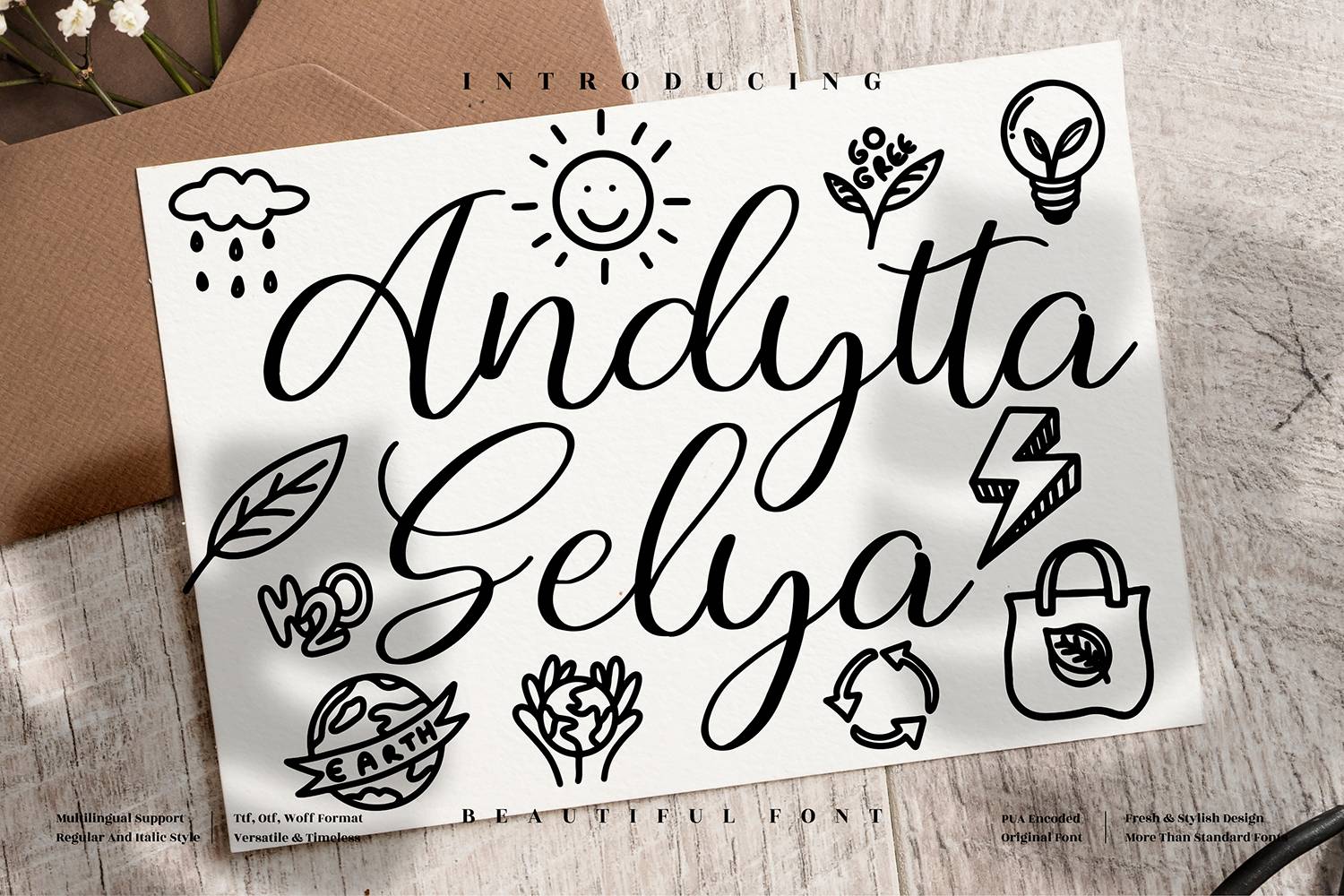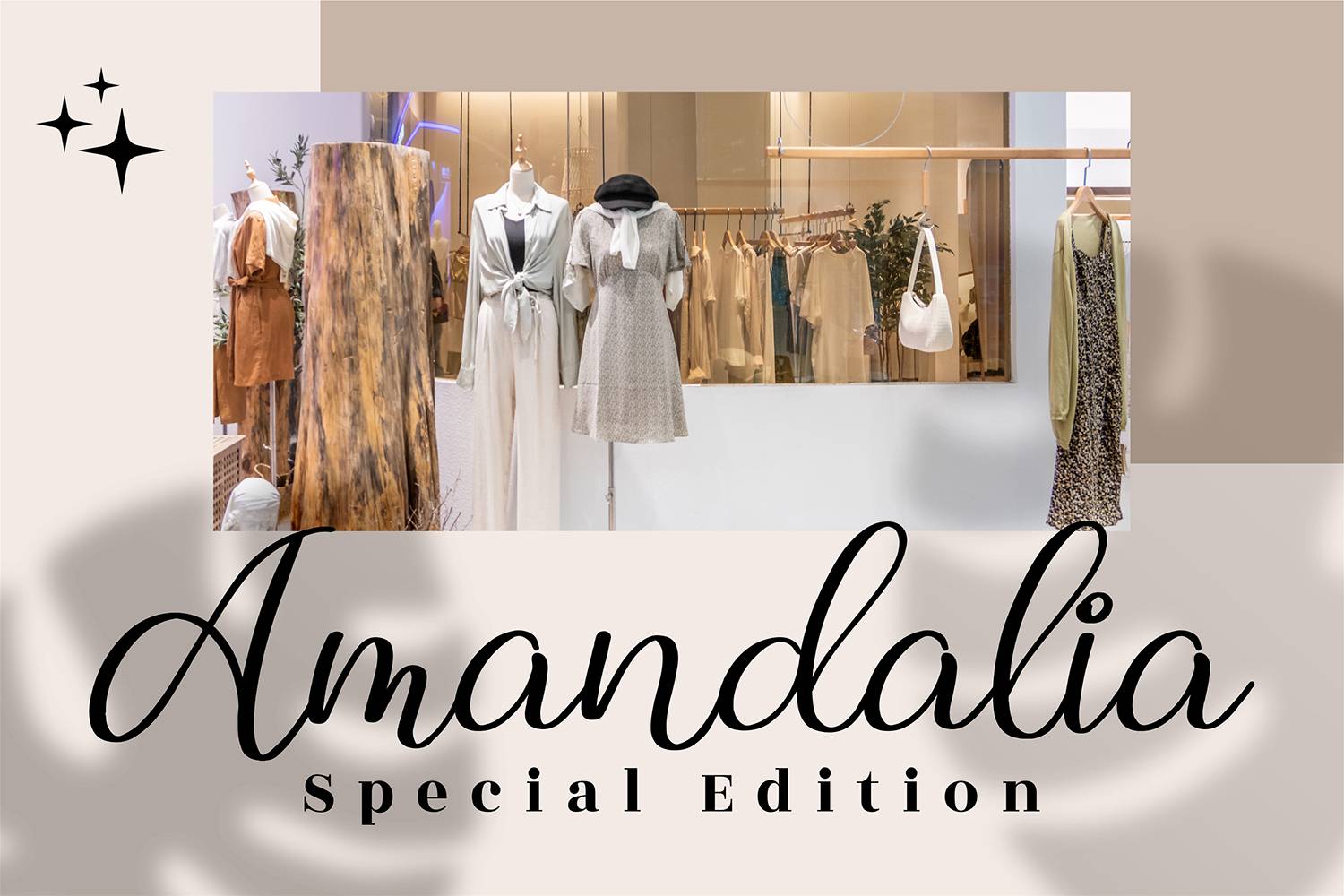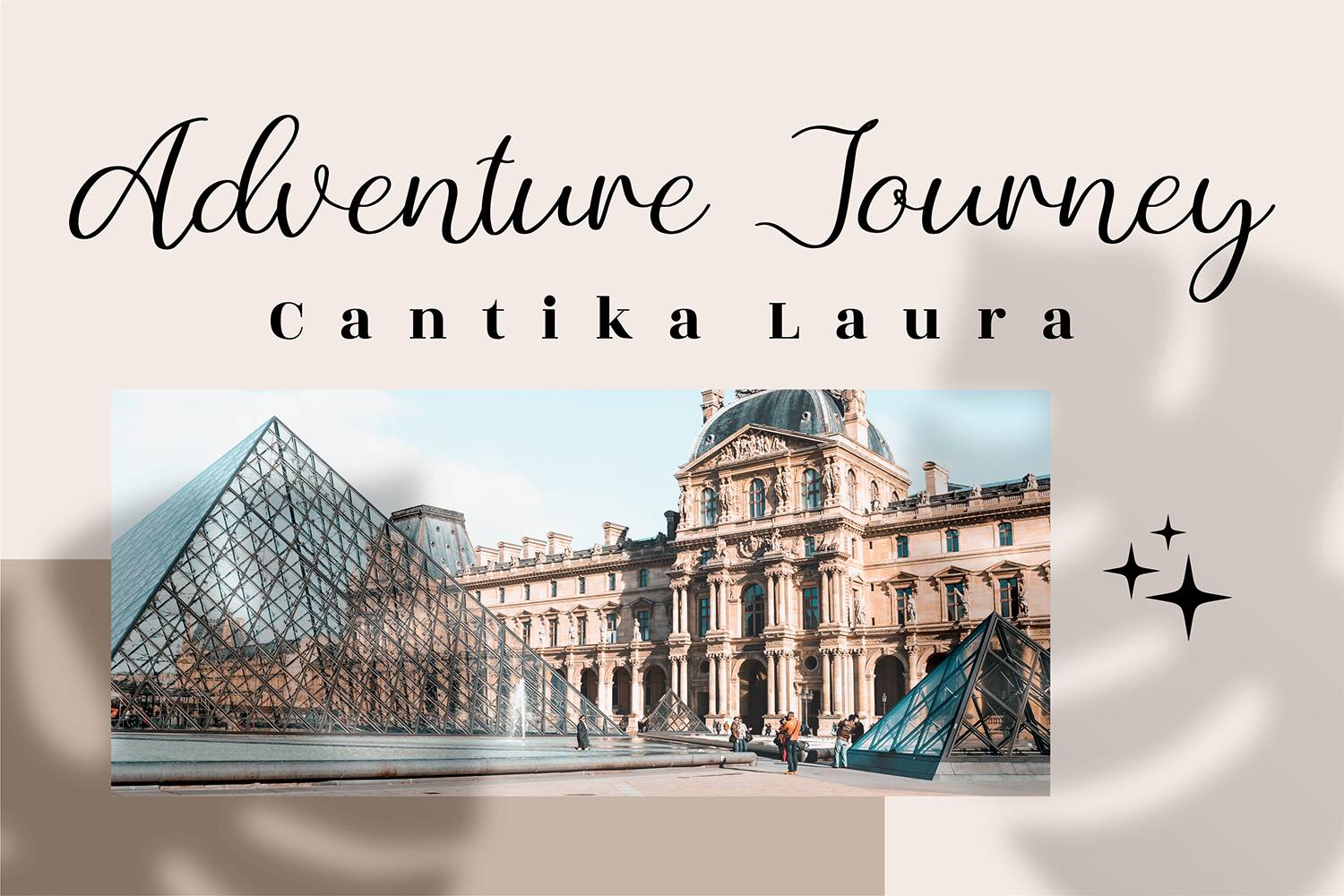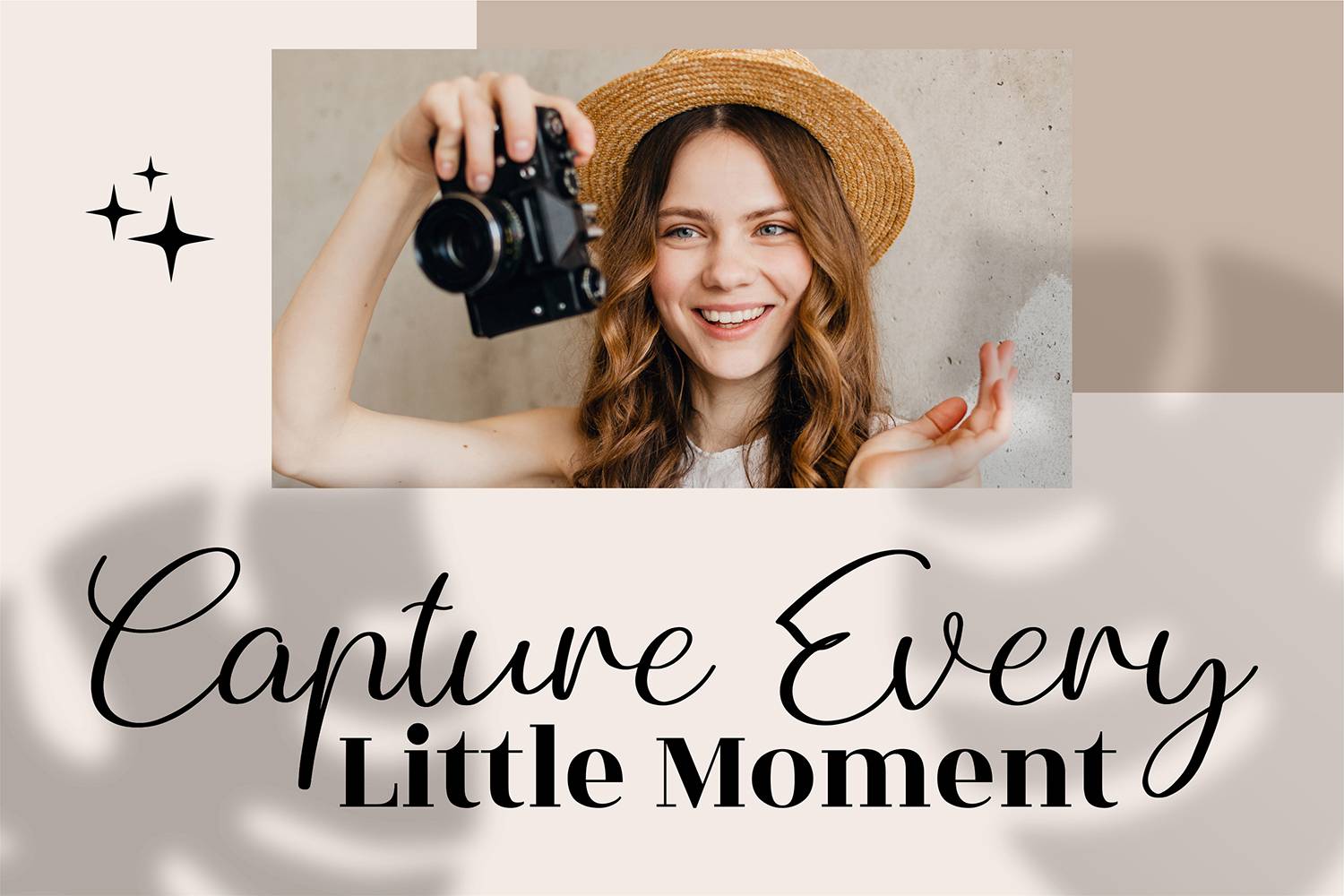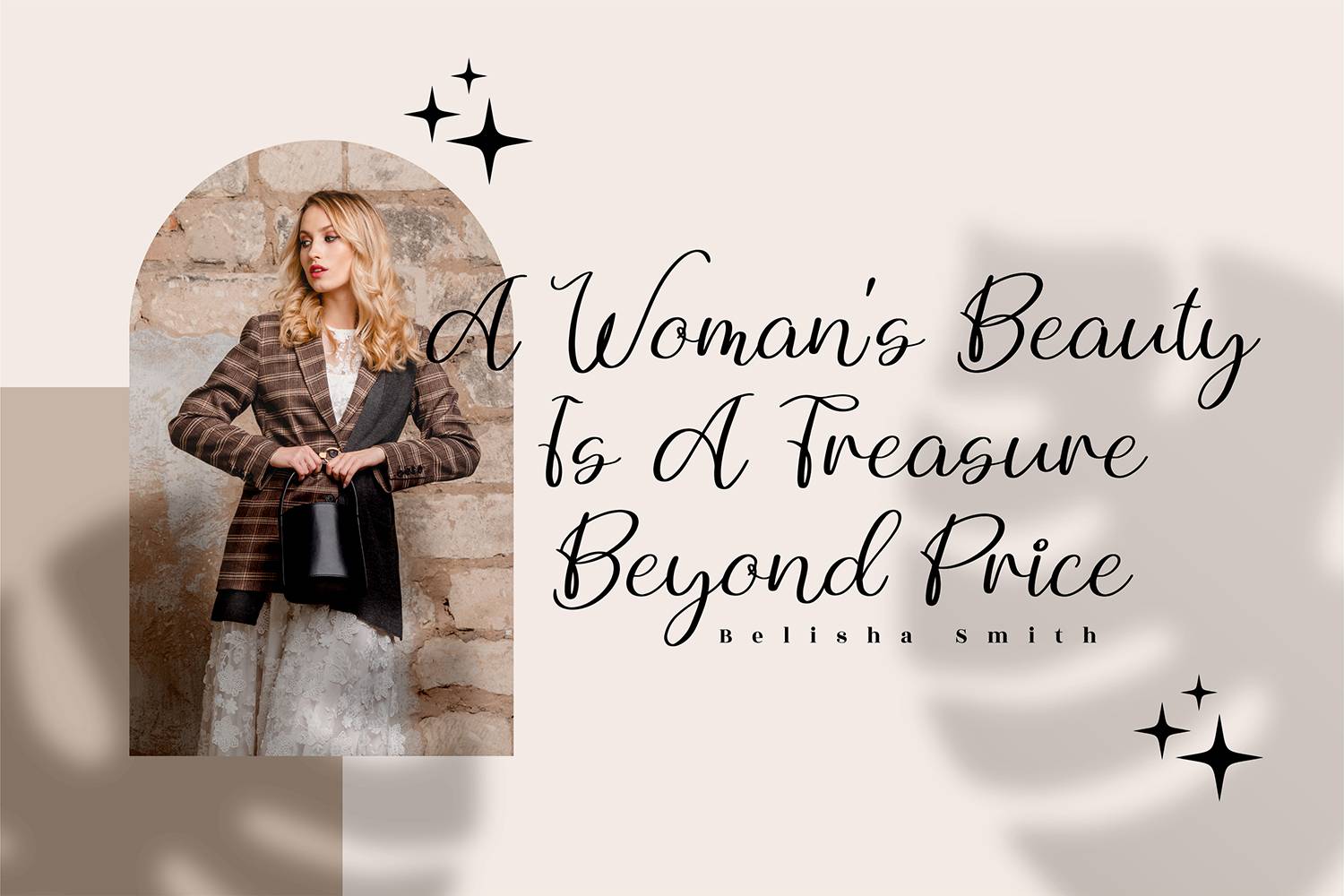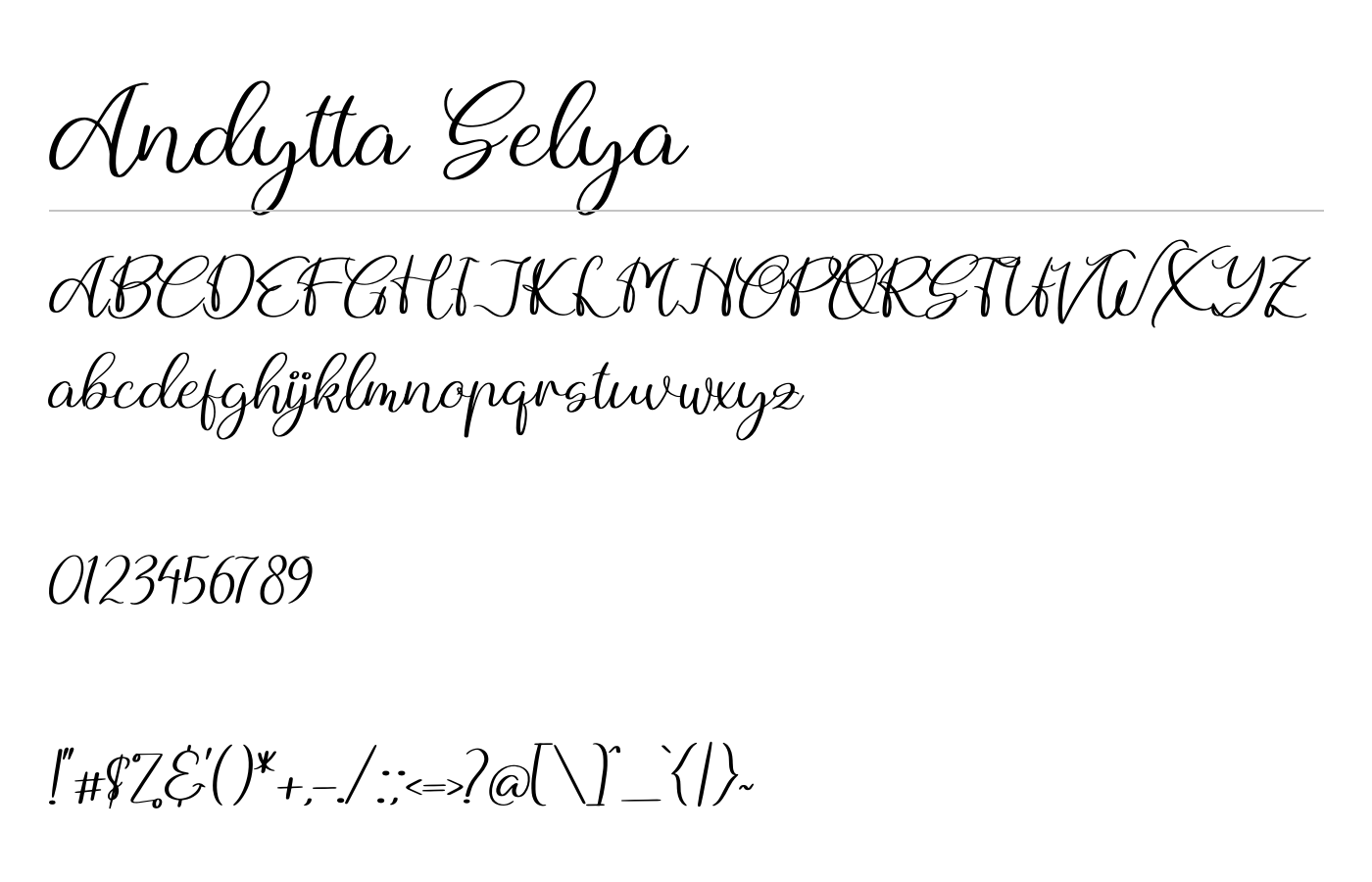
Andytta Selya is a delicate, elegant script font with smooth, flowing strokes that give it a handwritten, calligraphic feel. Its slender, slightly varied line weight and graceful letterforms make it perfect for sophisticated branding, wedding invitations, and feminine editorial designs where a touch of charm and refinement is desired. This font works best in large sizes for headlines or decorative text, adding a personal and stylish flair.
Andytta Selya Font
About Andytta Selya Font